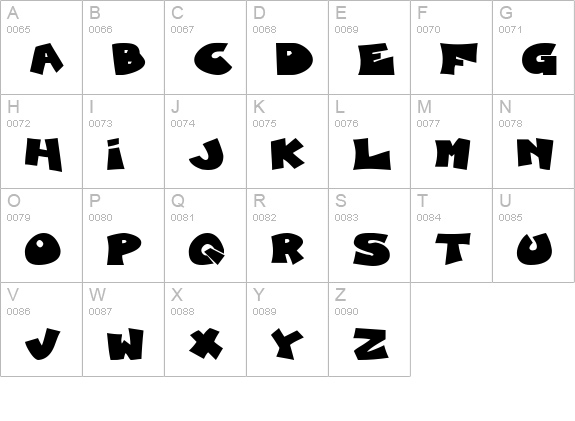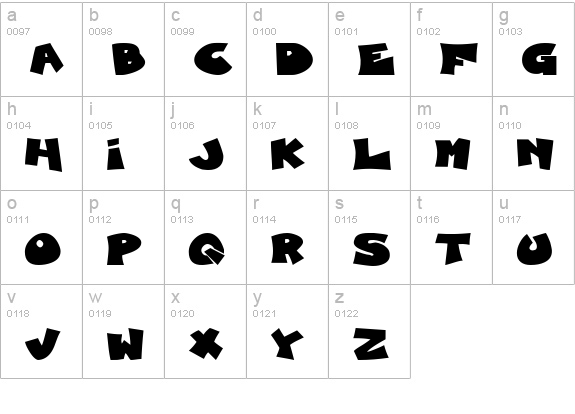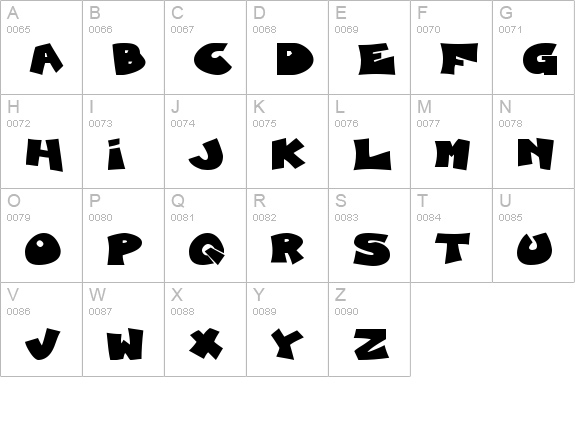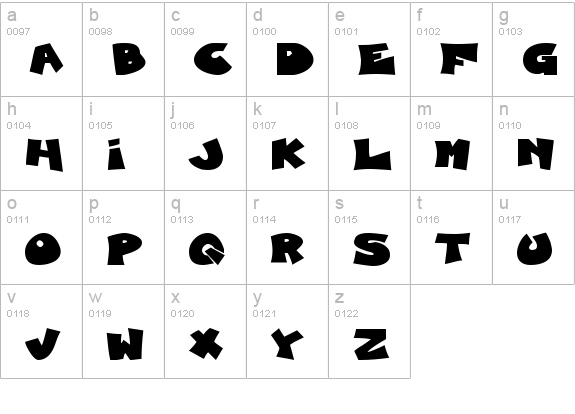
Blueberry Foxhound Font Details
Blueberry Foxhound font is a charming and whimsical typeface that captures the essence of playful elegance. With its unique blend of rounded shapes and smooth curves, this font exudes a sense of warmth and friendliness. Perfect for a variety of design projects, from branding to invitations, Blueberry Foxhound adds a touch of personality and creativity. Best of all, Blueberry Foxhound font is available for free download at FontsMarket.com, making it easily accessible to all designers and creatives looking to add a touch of charm to their work. Don't miss out on the opportunity to enhance your designs with this delightful and versatile font. Download Blueberry Foxhound today and let your creativity soar!